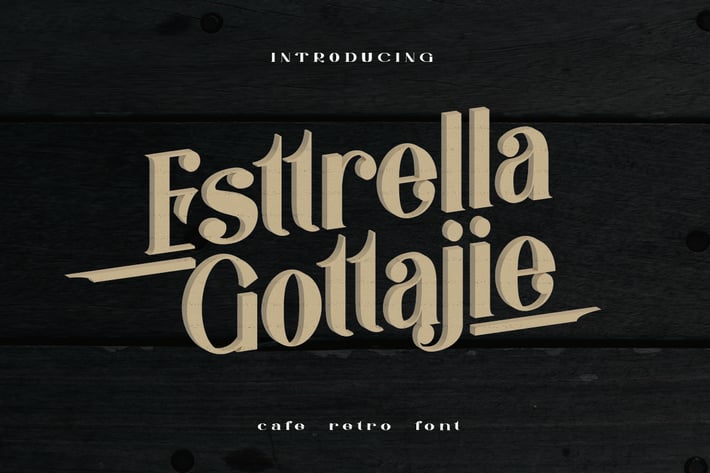
Estrella Gottajie - Retro Font
Introducing Estrella Gottajie, an elegant, simple, and beauty serif font. Its unique with retro and vintgae feel.
So perfect for you who needs a typeface for logo designs, magazine, social media, brochure, and many more.